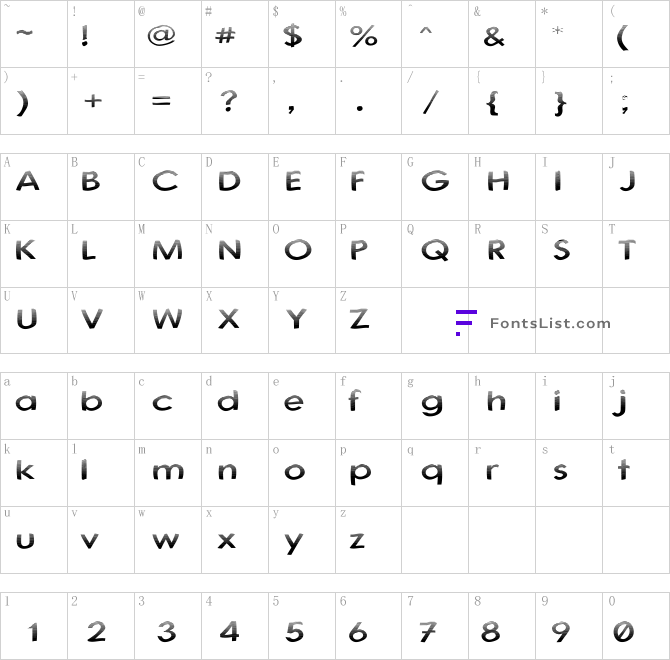
- Font Name:Australian Sunrise
Australian-Sunrise-copy-1-.ttf is a very beautiful artistic font, Australian-Sunrise-copy-1-.ttf is widely used in the design and printing of various books and pictures,Australian-Sunrise-copy-1-.ttf has a strong visual impact,Australian-Sunrise-copy-1-.ttf is a commonly used font in newspapers, magazines and books, and is used in posters, e-commerce Poster design, store design, logo design, font design and other fields.Australian-Sunrise-copy-1-.